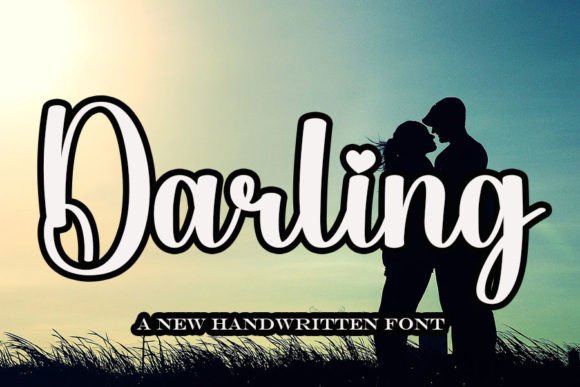
Adorn your designs with a touch of elegance, a kiss of sophistication, and a sprinkle of charm with Darling Font, a captivating handwritten font that will make your creations shine.
Step into a world of beauty and artistry as you explore the Darling Font, a script masterpiece that effortlessly combines classic penmanship with modern flair. Each letter dances across the page with grace and poise, leaving a trail of visual delight. Embrace the timeless charm of Darling Font and watch your projects blossom into works of art!
Whether you're designing invitations, crafting logos, creating social media graphics, or simply adding a personal touch to your digital projects, Darling Font is your perfect companion. Its versatility knows no bounds, adapting seamlessly to a wide array of design styles. From whimsical and playful to elegant and refined, Darling Font has the power to transform your words into stunning visual statements.
Indulge in the exquisite details of Darling Font, where each curve, stroke, and flourish is meticulously crafted to evoke a sense of wonder. The font's organic, flowing lines evoke a sense of authenticity and warmth, inviting viewers to connect with your designs on a deeper level. Let Darling Font be your creative muse, inspiring you to create designs that captivate, enchant, and leave a lasting impression.
Dive into the world of Darling Font today and unlock the gateway to design excellence. With its timeless beauty, endless versatility, and captivating charm, Darling Font is the key to unlocking your creative potential. Seize the opportunity to elevate your designs to new heights and embark on a journey of creativity that will leave you breathless. Embrace the Darling Font experience and let your designs bloom with elegance, grace, and timeless beauty!